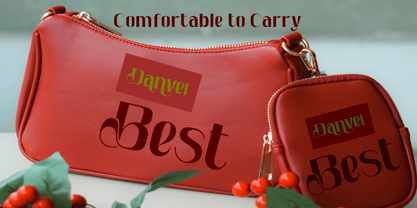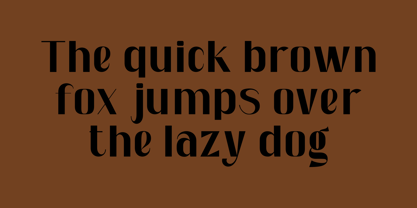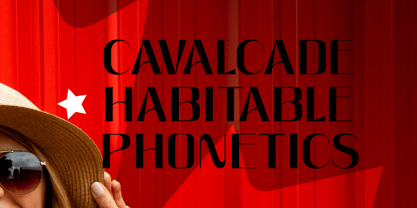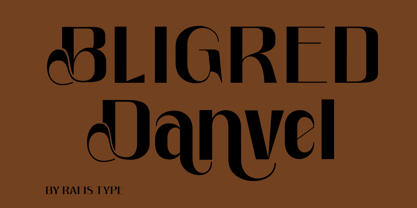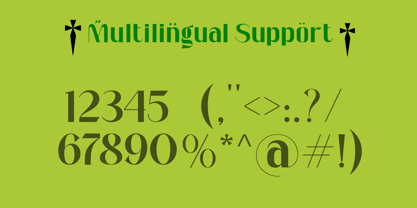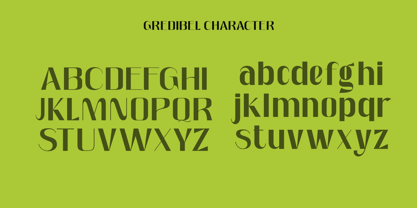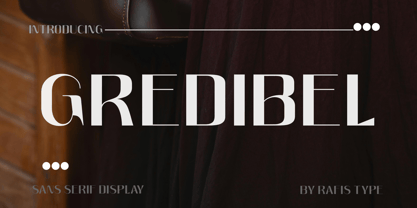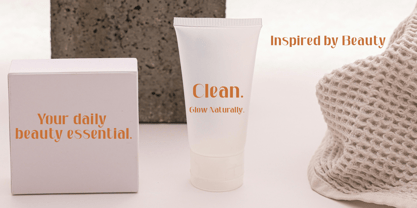
Gredibel
by Rafis Type
The Gredibel Font Family was designed by Agus Priono and published by Rafis Type. Gredibel contains 2 styles and family package options. More about this family
Gredibel is a modern sans serif typeface that combines simplicity, clarity, and strong character. Designed with clean letterforms and balanced proportions, Gredibel delivers excellent readability while maintaining a professional and contemporary appearance. Its versatility makes it ideal for a wide range of design applications, including branding, logos, editorial layouts, packaging, and digital media. With an elegant yet minimalist style, Gredibel is the perfect choice for creating modern and memorable visual identities.
Designers: Agus Priono
Foundry: Rafis Type